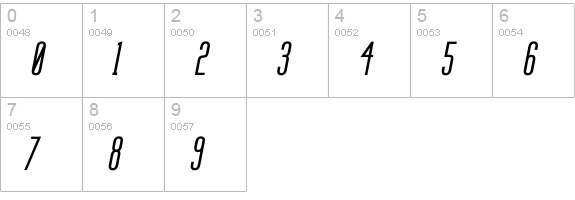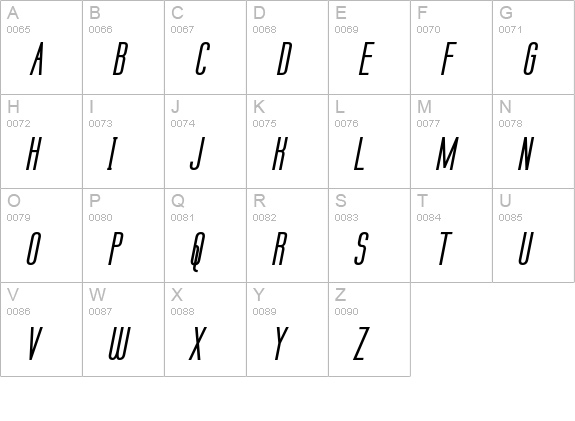
Labtop Unicase Bold Italic is a strong, high-contrast, italic variant in the Labtop typeface family \xE2\x80\x94 well suited to headlines, attention-grabbing titles, and strong calls-to-action.
Labtop Unicase Bold Italic font is a modern and stylish typeface that exudes confidence and sophistication. Its unique design features bold, unicase letterforms with a touch of elegance in the italic styling. This font is perfect for making a statement in headlines, logos, and branding materials. The best part about Labtop Unicase Bold Italic font is that it is available for free download at FontsMarket.com. This means you can easily access and use this eye-catching font for your personal and commercial projects without any cost. Don't miss out on the opportunity to add this versatile and striking font to your design arsenal today!